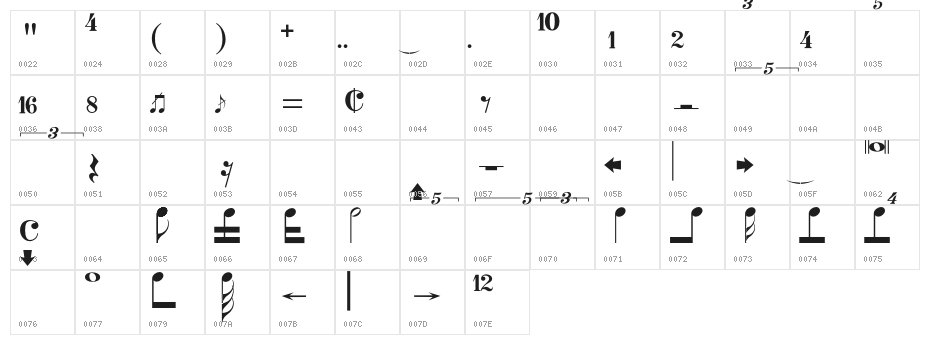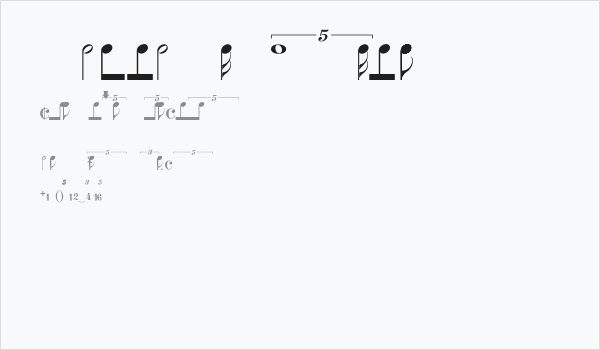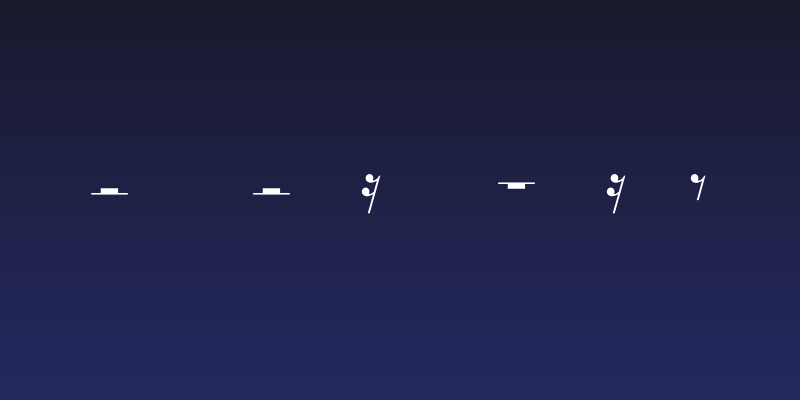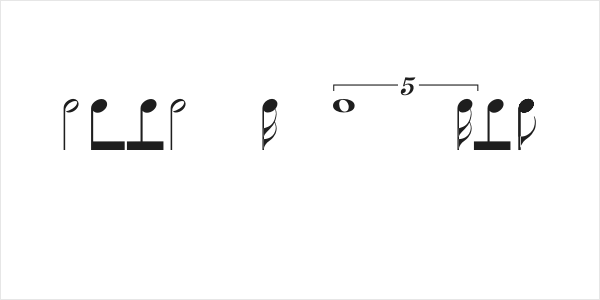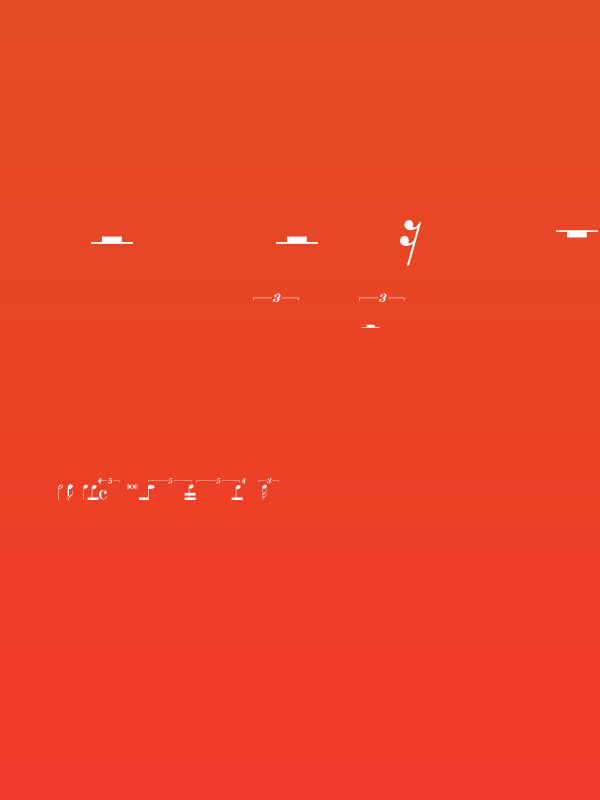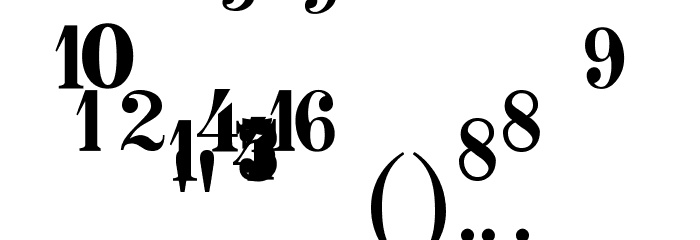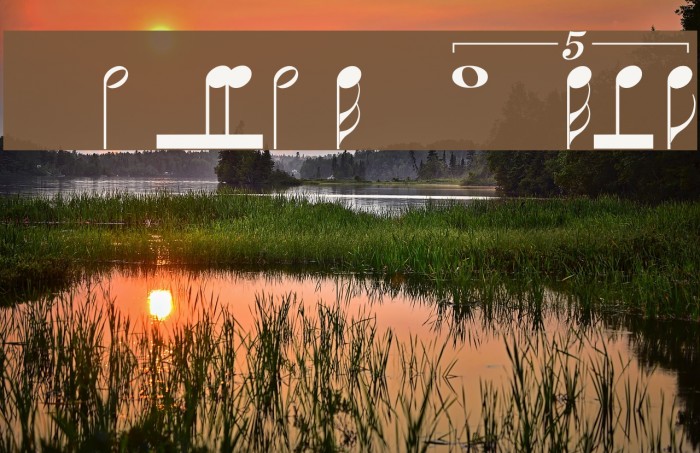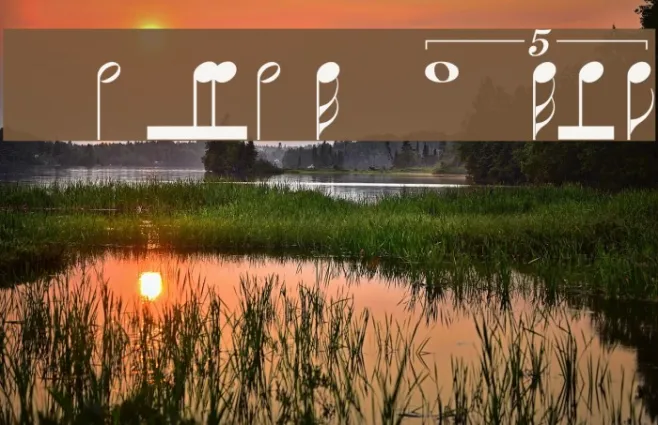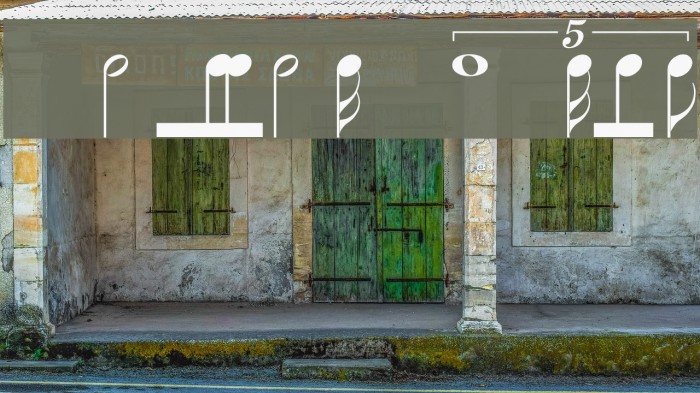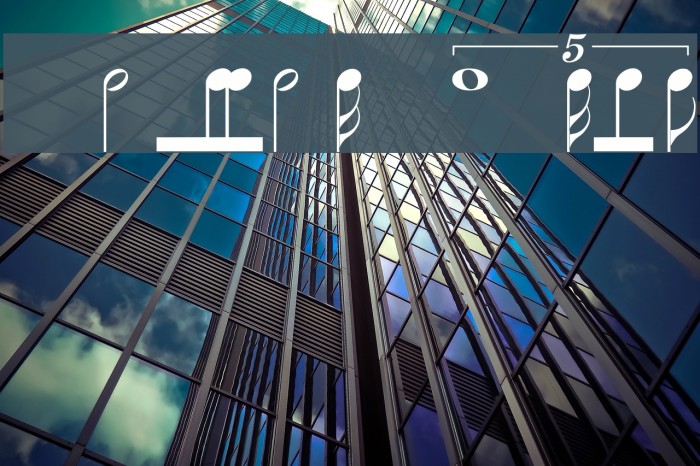
RhythmsDownstem Font
RhythmsDownstem Description
| Overall Style | Decorative, Functional, Music Notation |
| Use Case | Music notation, educational materials, rhythm transcription. |
| Proposed Projects | Sheet music, rhythm exercises, educational music materials, music theory worksheets. |